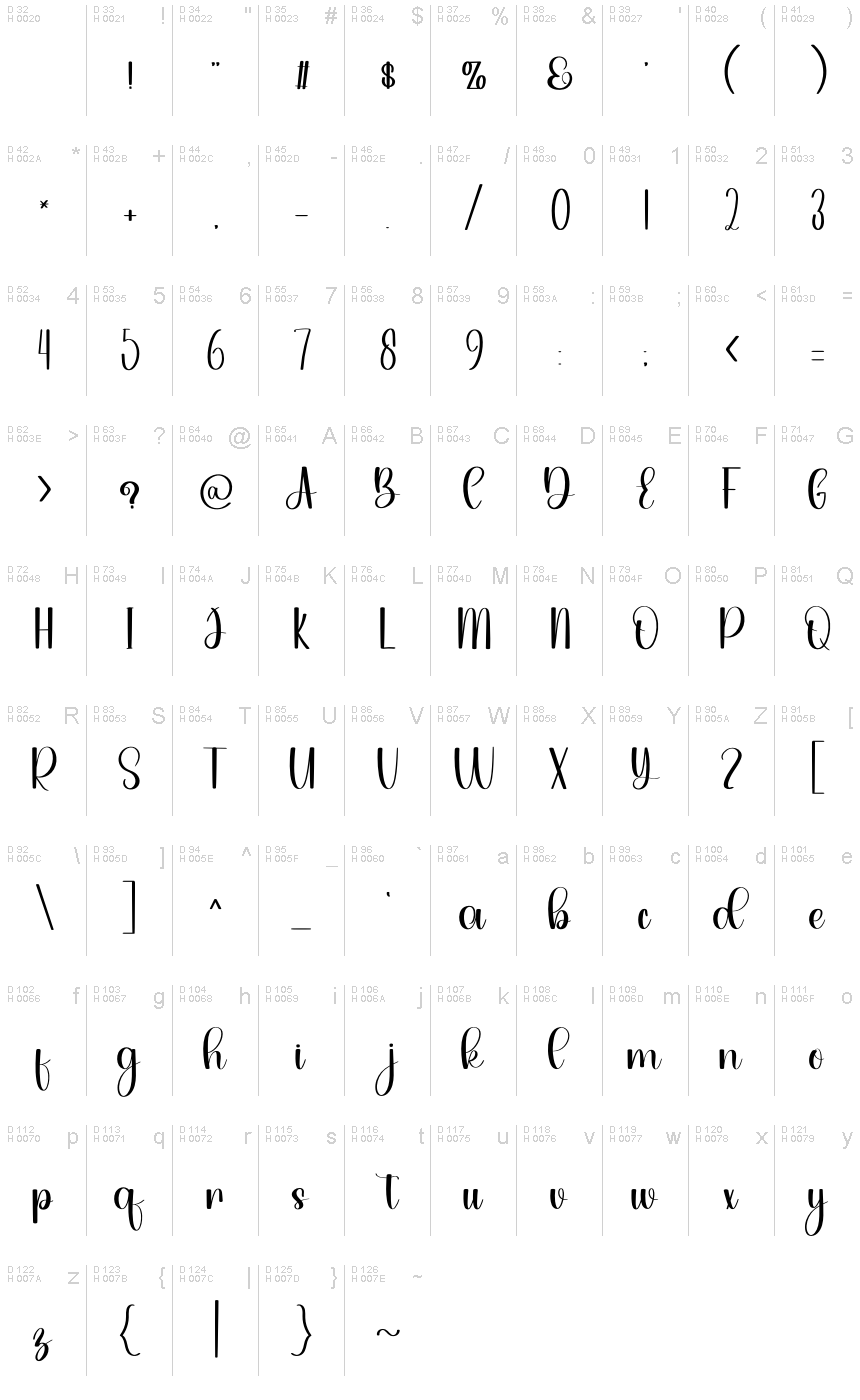
Vintage Wedding
Vintage Wedding, designed by PiPi Creative, is a font that exudes the charm of handwritten calligraphy with a modern twist. Its semi-light strokes and elegant flourishes capture the essence of a timeless romance, making it perfect for invitations, branding, and editorial design. Each character in the Vintage Wedding font is crafted to convey warmth and personality, ensuring that your creative projects resonate with intimacy and sophistication.
Whether for an intimate gathering or a lavish ceremony, this font adds a personal touch that elevates any design piece to an artifact of beauty.